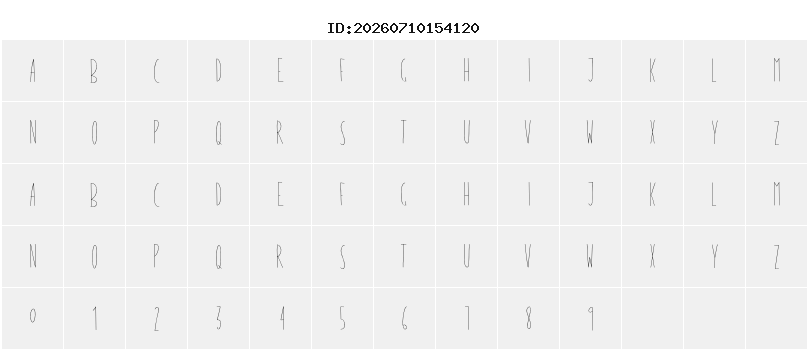
• Font Name: Fab Craft
• Full Font Name: Fab Craft
• Designer: Alejandro Fabuel
About Fab Craft.otf
Fab Craft.otf is a modern, elegant sans-serif font designed for ultimate readability and visual harmony. Perfect for branding, headlines, web design, and print materials.